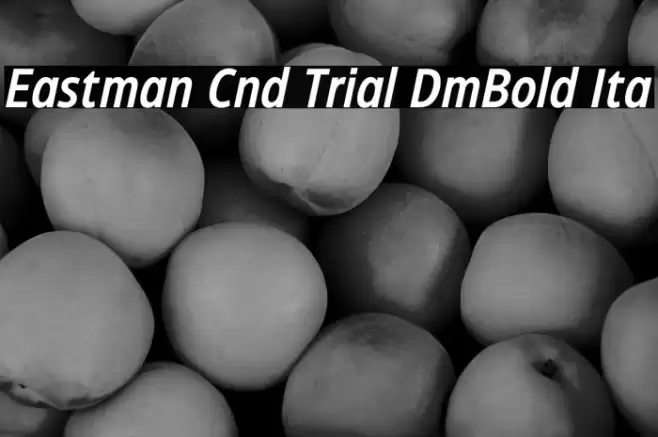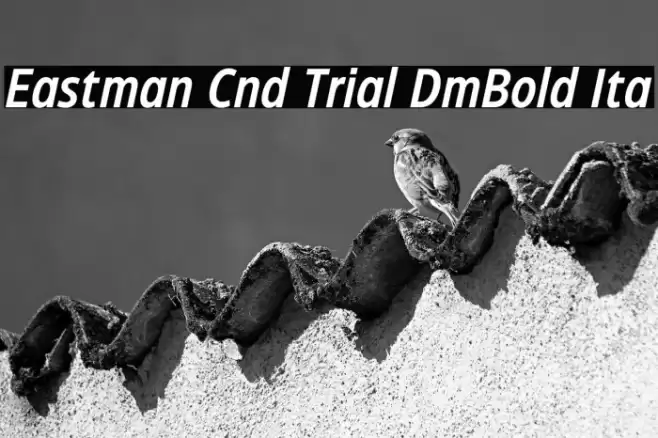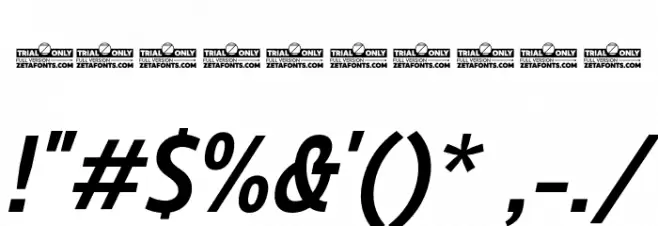
Eastman Cnd Trial DmBold Ita Font
Eastman Cnd Trial DmBold Ita Description
This font features a bold and italicized style with a condensed width, giving it a strong and dynamic appearance. The characters are slightly slanted, enhancing the italic effect, while maintaining a clean and modern look. The uppercase and lowercase letters are well-proportioned, and the numerals are clear and distinct. The special characters are designed to complement the overall style, making it versatile for various uses. The stroke contrast is medium, providing a balanced visual weight across different characters.
A bold, italic, and condensed font with a modern and dynamic style from Uncategorized fonts.